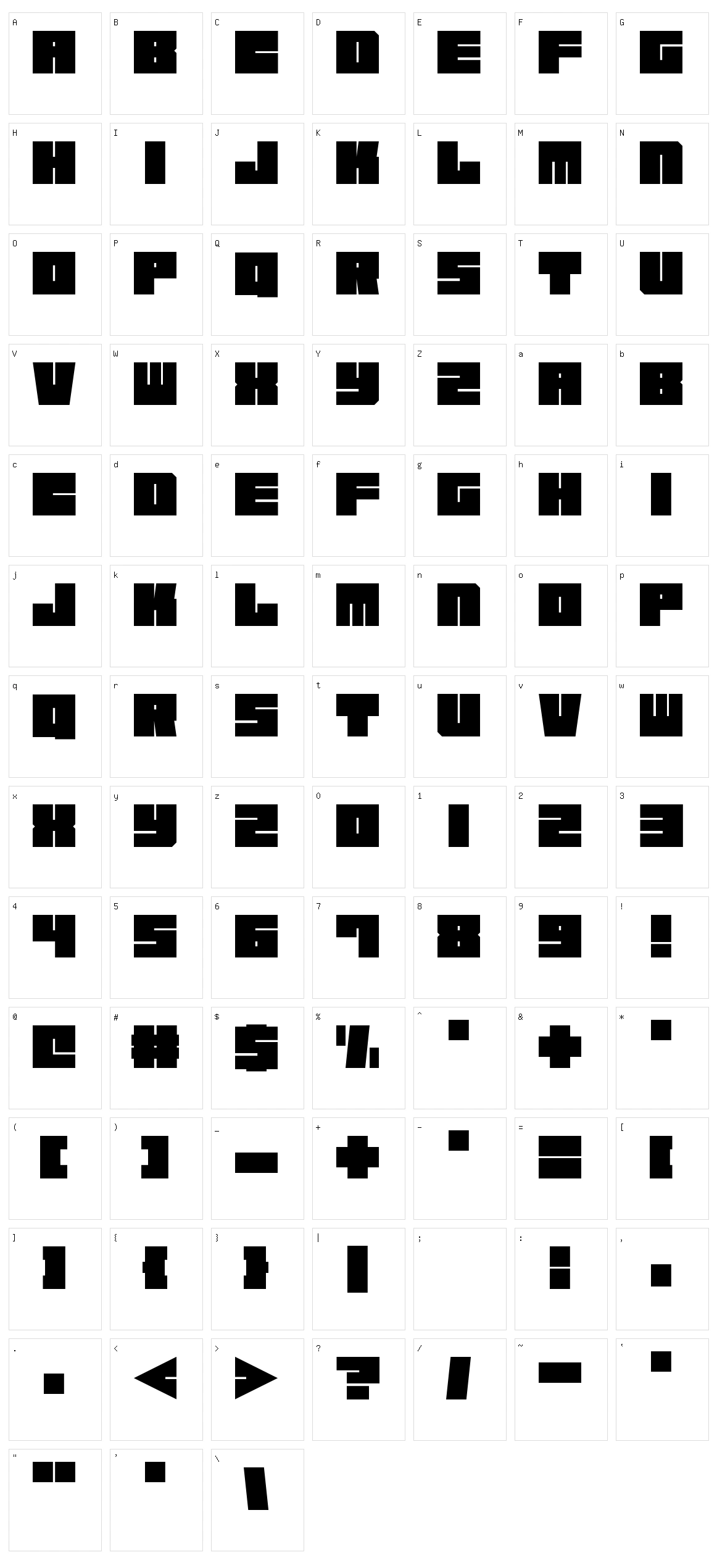
The free font Square Chunks is carefully designed by Hawtpixel, showcasing a thoughtful balance of creativity and usability and falls under the Square font style. When you download the ZIP file, it contains only 15.65 KB of font files, making it lightweight and quick to download. Please review the license details below to understand permitted usage and distribution rights. If license information is not available, we recommend using this font for personal projects only or contacting the author directly for commercial usage permissions.